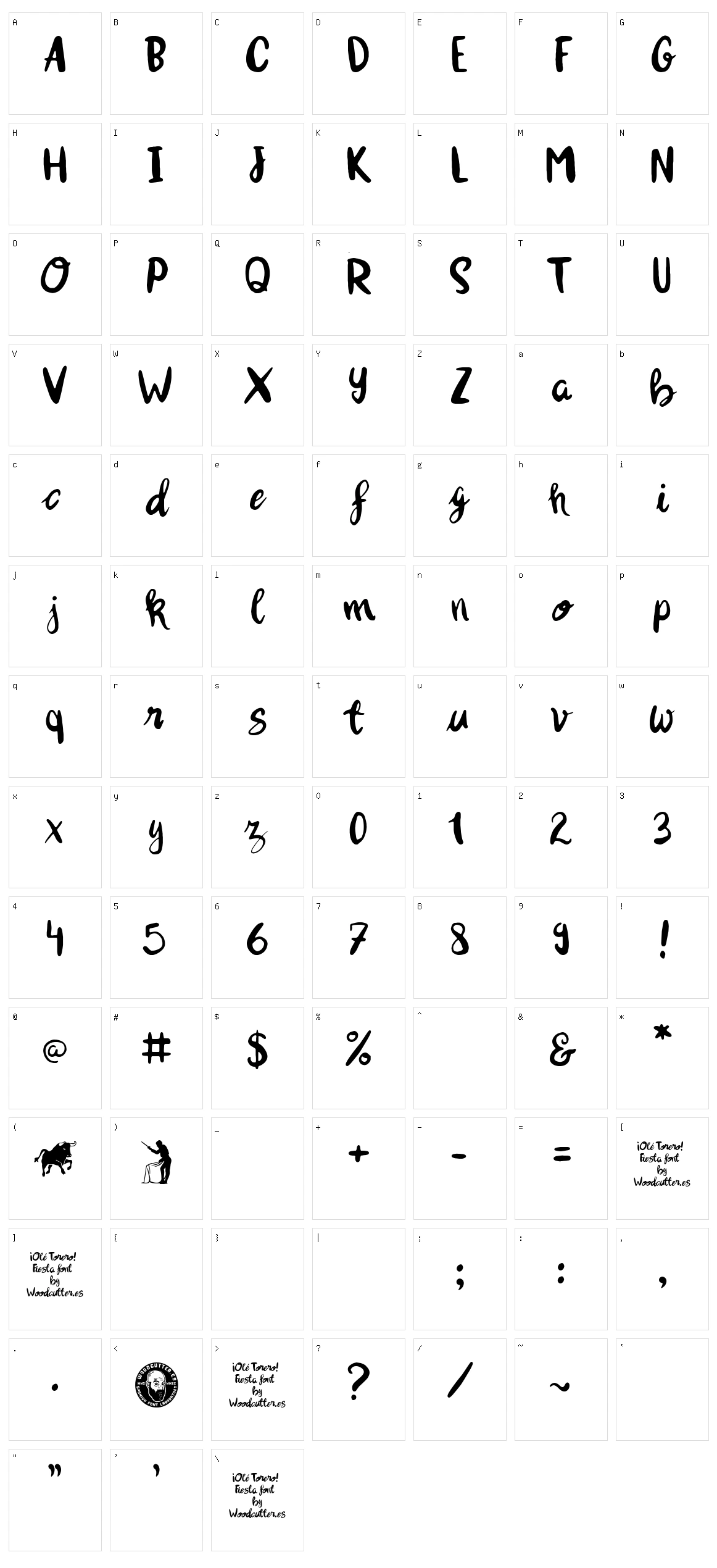
The free font Ol Torero is carefully designed by Woodcutter, showcasing a thoughtful balance of creativity and usability and falls under the Script font style. When you download the ZIP file, it contains only 49.86 KB of font files, making it lightweight and quick to download. Please review the license details below to understand permitted usage and distribution rights. If license information is not available, we recommend using this font for personal projects only or contacting the author directly for commercial usage permissions.